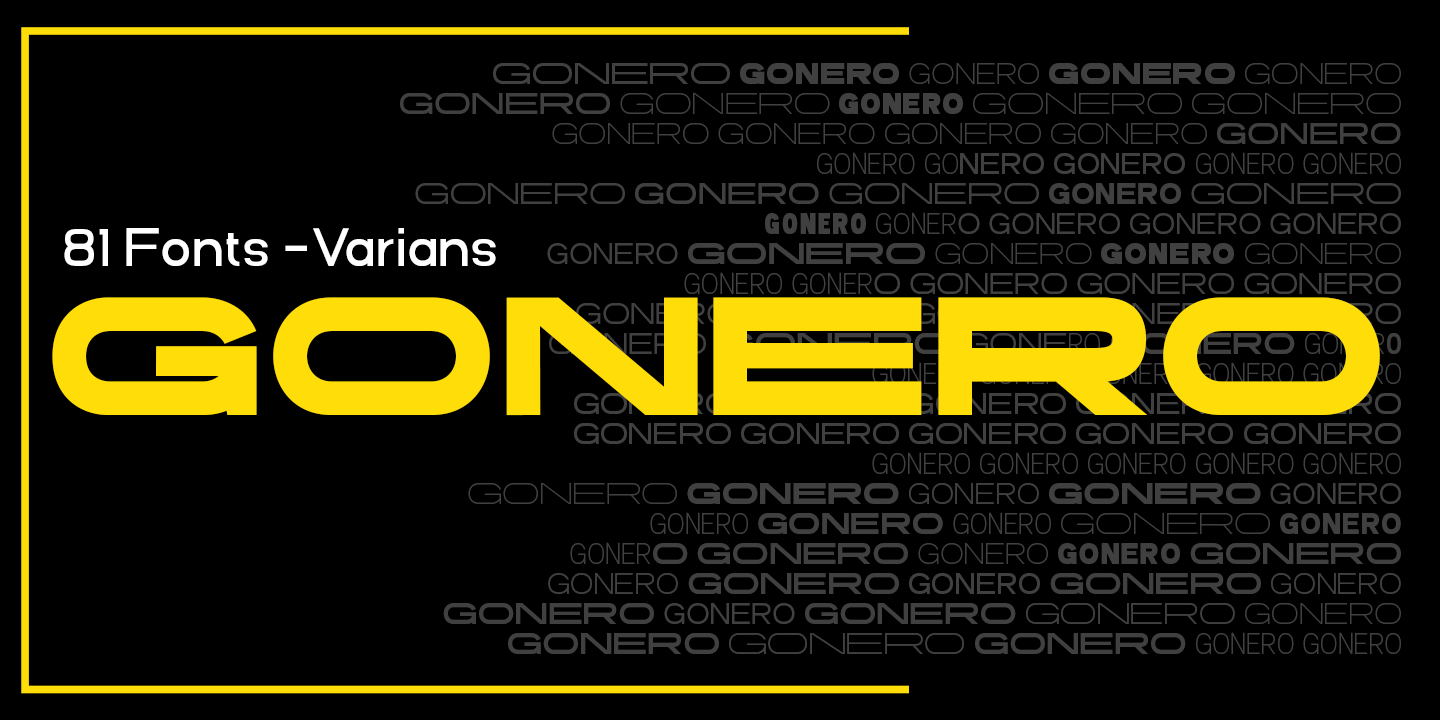
Gonero Font is perfect for bold headlines, modern branding, poster design, magazine covers, advertising campaigns, logo creation, web headers, and striking display applications. This powerful typeface excels in projects requiring strong visual impact and contemporary appeal where making a statement is essential.
What makes Gonero Font exciting is its distinctive character design that combines geometric precision with unique stylistic elements, creating a memorable and impactful presence. The font features strong letterforms with carefully crafted details that command attention while maintaining excellent readability. Its modern aesthetic makes it ideal for brands seeking to convey strength, innovation, and forward-thinking design philosophy.
Gonero Font family includes multiple weights and styles, offering comprehensive typographic solutions for complex design projects. The family typically consists of light, regular, medium, semibold, bold, and black variations, along with corresponding italic styles that provide extensive flexibility for creating dynamic visual hierarchies.
Whether you're developing tech company branding, designing editorial layouts, or creating impactful advertising materials, Gonero Font Free Download delivers exceptional performance across all applications. This font's versatile nature and contemporary appeal make it perfect for both digital and print media projects.
The balanced proportions and optimized spacing of Gonero Font ensure outstanding legibility at any size, from large display headlines to smaller supporting text. Its distinctive personality and professional quality make it an invaluable addition to any designer's toolkit. Download Gonero Font today and experience the perfect combination of modern sophistication and visual impact in your creative projects.